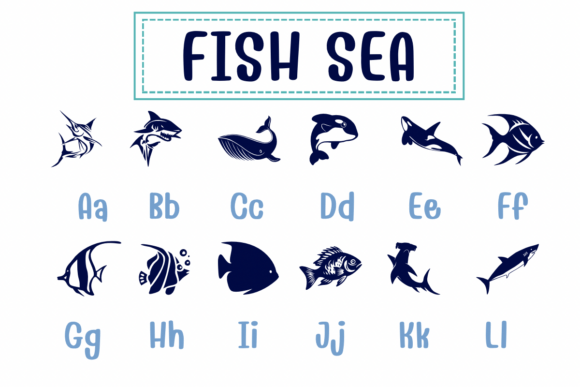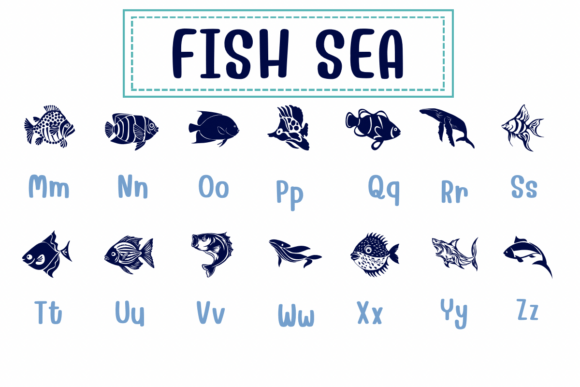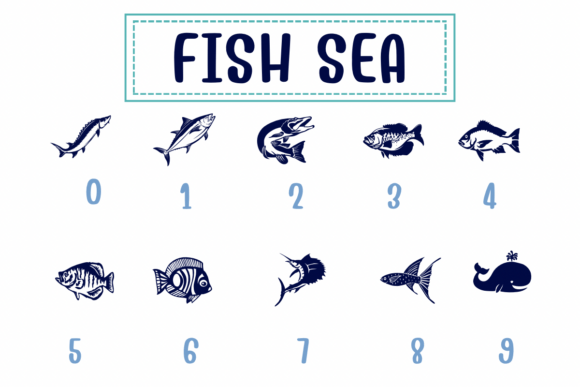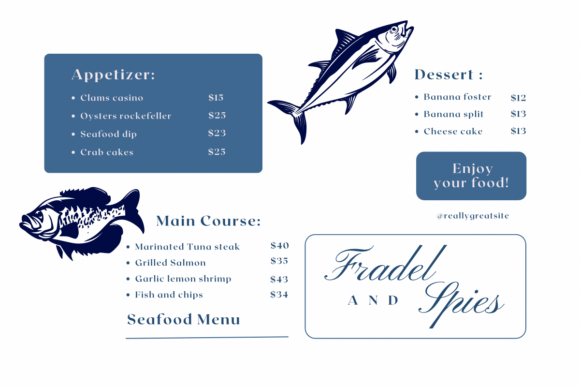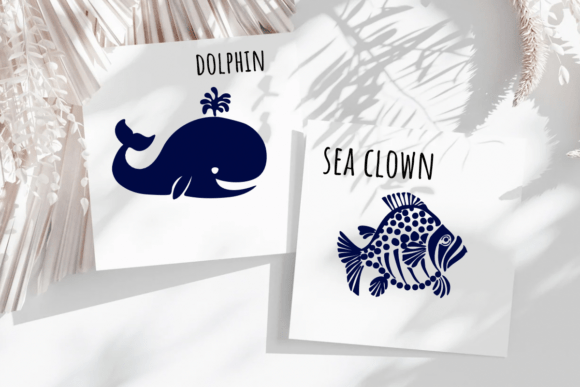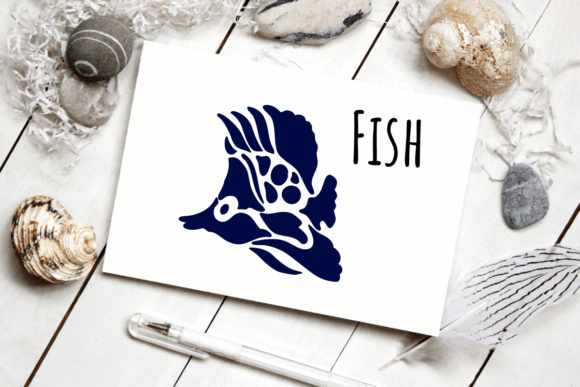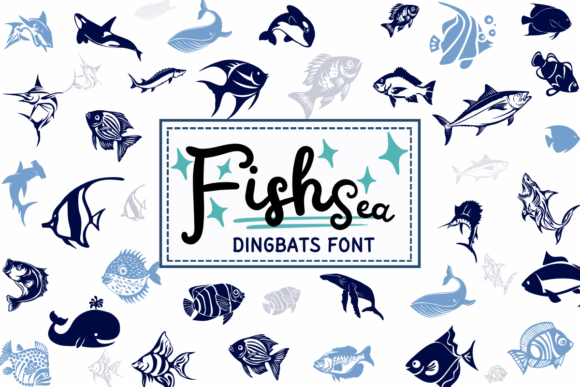
Introducing Fish Sea Font: A Treasure Trove of Oceanic Delights
Are you a designer, crafter, or educator looking for a unique and engaging way to add some oceanic flair to your projects? Look no further than Fish Sea Font, a delightful dingbats font featuring a wide variety of fish and sea life silhouettes. From the majestic angelfish to the playful dolphins, this font is perfect for ocean-themed crafts, underwater party decor, marine logos, and educational projects.
What is Fish Sea Font?
Fish Sea Font is a carefully crafted dingbats font that showcases a diverse range of fish and sea creatures. The font includes a vast array of silhouettes, from common fish like salmon and goldfish to more exotic creatures like sharks and stingrays. With Fish Sea Font, you’ll have access to a treasure trove of oceanic graphics that can be used to add a touch of whimsy and personality to your projects.
Features of Fish Sea Font
- Wide variety of fish and sea life silhouettes: From angelfish to zebrafish, and from sea turtles to octopuses, Fish Sea Font features a vast array of oceanic creatures.
- Perfect for ocean-themed crafts: Whether you’re creating party decorations, gift tags, or DIY projects, Fish Sea Font is the perfect addition to your design toolkit.
- Scalable and versatile: Fish Sea Font can be scaled up or down to fit your design needs, making it perfect for a wide range of applications, from logos and branding to educational materials and crafts.
Uses for Fish Sea Font
Fish Sea Font is a versatile design tool that can be used in a variety of contexts. Here are just a few ideas to get you started:
- Ocean-themed crafts: Use Fish Sea Font to add a touch of oceanic whimsy to your crafts, including party decorations, gift tags, and DIY projects.
- Marine logos and branding: Create a fin-tastic logo or brand identity for your marine-related business or organization using Fish Sea Font.
- Educational projects: Use Fish Sea Font to create engaging and informative educational materials, including posters, worksheets, and activity sheets.
- Underwater party decor: Create a splashing good time with Fish Sea Font, perfect for underwater-themed party decorations, invitations, and more.
Tips and Tricks for Using Fish Sea Font
Here are a few tips and tricks to help you get the most out of Fish Sea Font:
- Experiment with different colors and textures: Add depth and interest to your designs by experimenting with different colors and textures.
- Combine with other fonts: Pair Fish Sea Font with other fonts to create visually appealing and engaging designs.
- Use in conjunction with other design elements: Combine Fish Sea Font with other design elements, such as shapes and graphics, to create a cohesive and eye-catching design.
Fish Sea Font is a delightful dingbats font that is sure to make a splash in your designs. With its wide variety of fish and sea life silhouettes, ease of use, and versatility, Fish Sea Font is the perfect addition to your design toolkit. Whether you’re a designer, crafter, or educator, Fish Sea Font is sure to inspire your creativity and help you create engaging and informative designs. So why wait? Dive into the world of Fish Sea Font today and discover a treasure trove of oceanic delights!